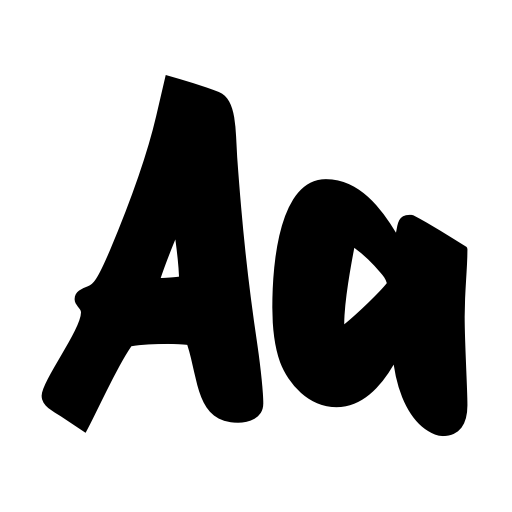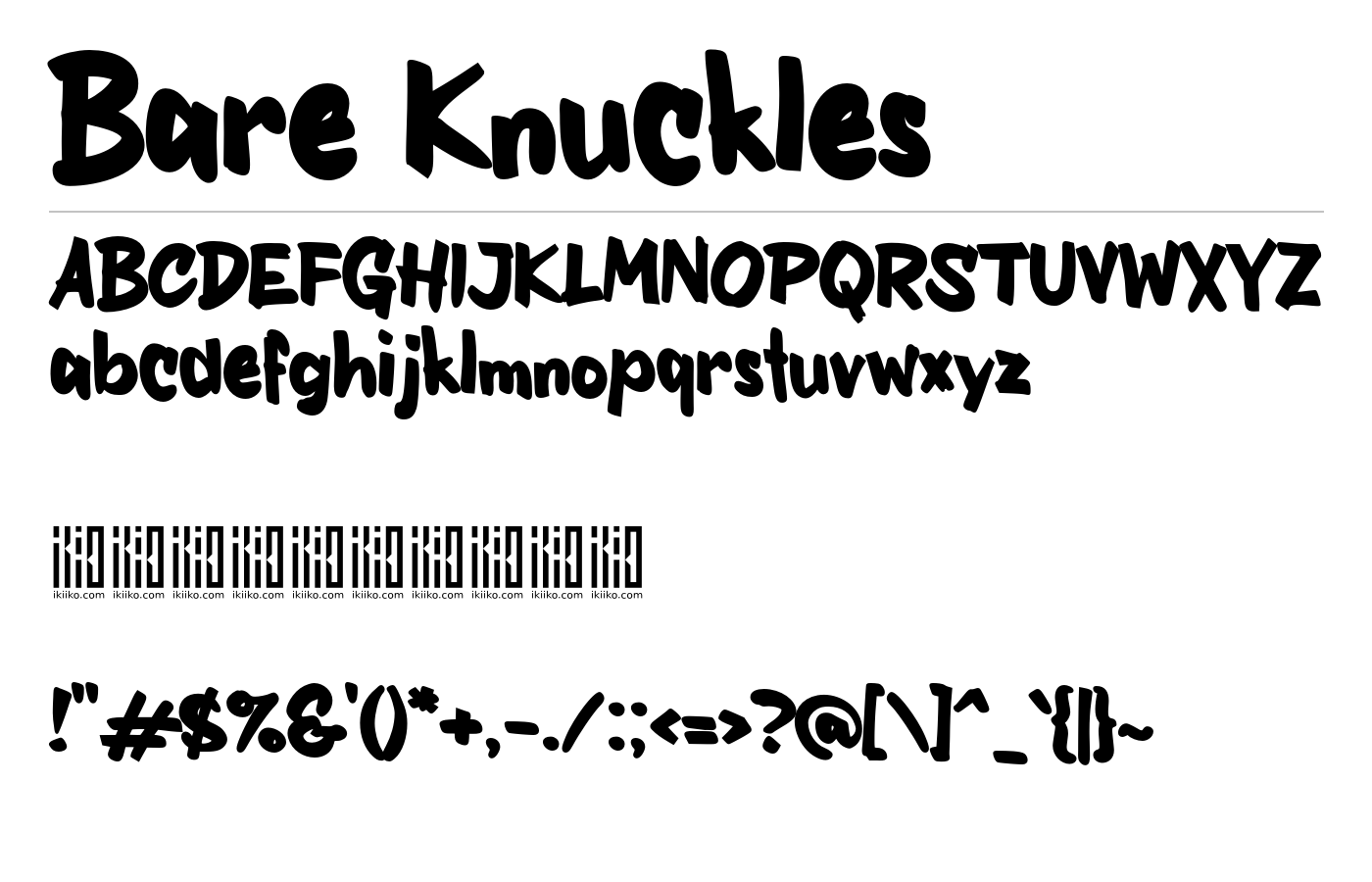
Bare Knuckles is a bold, playful sans serif font with a lively, hand-drawn feel. Its chunky letterforms and uneven strokes give it a casual, energetic personality, perfect for fun, informal designs like posters, logos, and children's materials. This font stands out with its approachable style, making it ideal for projects that want to convey friendliness and creativity.
Bare Knuckles Font
About Bare Knuckles Font